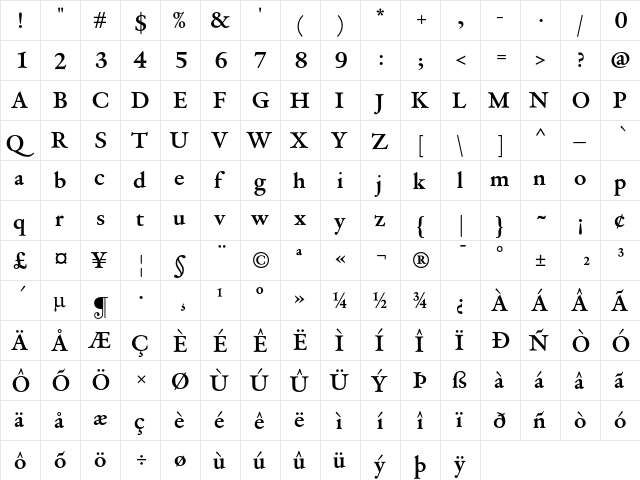
DTLVandenKeereD Bold
Design Context for DTLVandenKeereD Typeface
DTLVandenKeereD is a composed and adaptable typeface that performs quietly and consistently across a wide range of design contexts. Its bold stroke weight gives it real presence on the page.